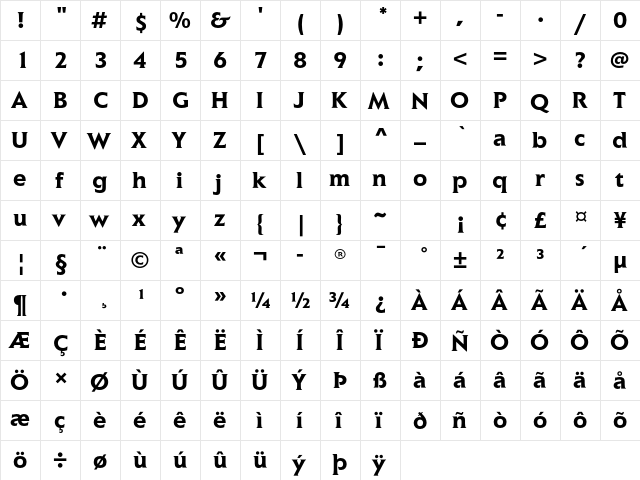
Elan ITC Std Bold
| Designer | Albert Boton |
Design Context for Elan ITC Std Typeface
Elan ITC Std is a composed and adaptable typeface that performs quietly and consistently across a wide range of design contexts. Its bold stroke weight gives it real presence on the page.